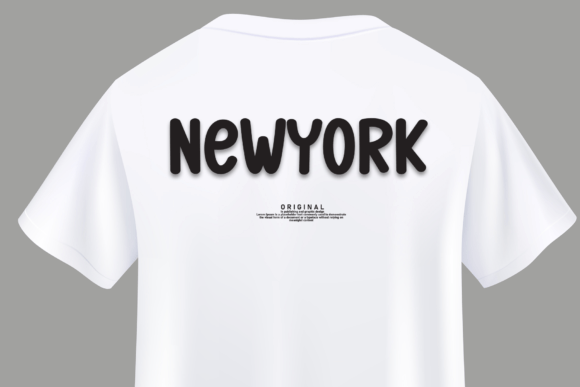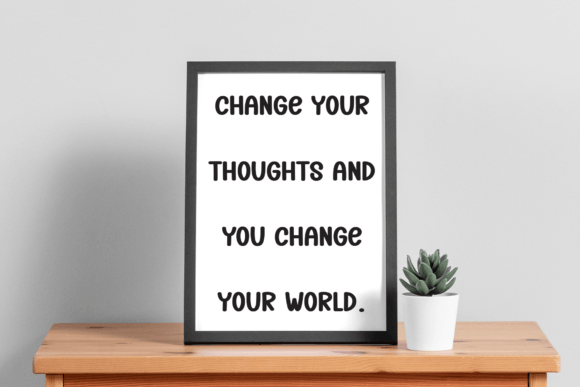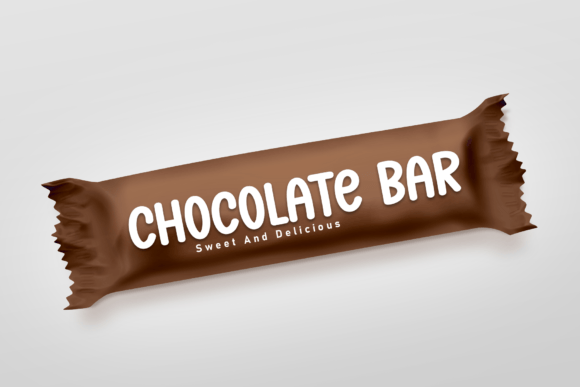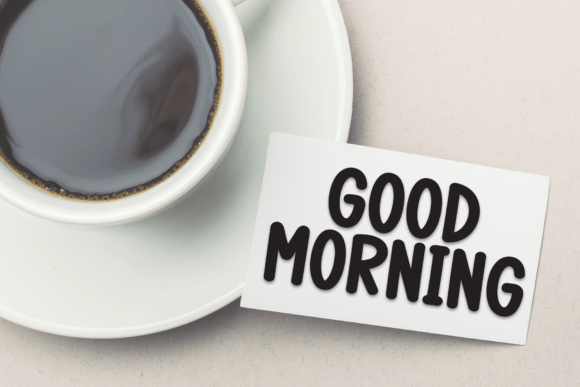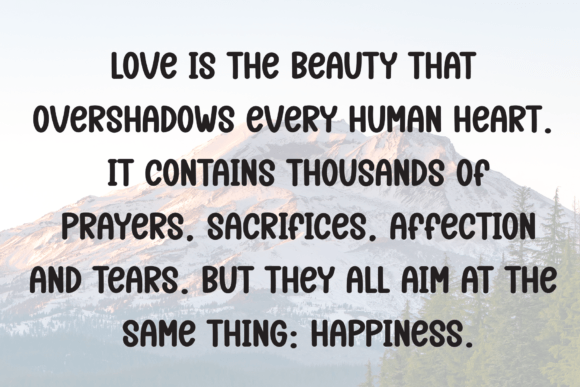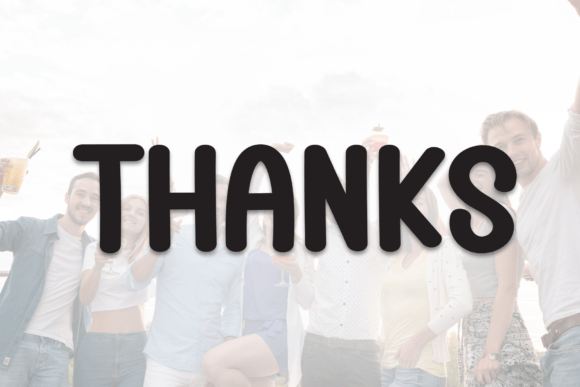
Introducing Happy Party Font: The Ultimate Addition to Your Design Toolkit
Are you tired of using the same old fonts for your designs? Do you want to add a touch of whimsy and joy to your creations? Look no further than Happy Party Font, a charming and endearing handwritten display font that exudes sweetness and friendliness. With its fun, playful characteristics, this font is perfect for wedding invitations, greeting cards, and any other designs that long for a dash of personality.
A Unique Handwriting Aesthetic
Happy Party Font boasts a unique handwriting aesthetic that brings a personal touch to your designs. Its handwritten style is reminiscent of a warm and cozy conversation with a friend, making it perfect for designs that require a friendly and approachable tone. The font’s playful characteristics add a touch of whimsy and fun, making it ideal for designers and crafters who want to create designs that stand out from the crowd.
Wedding invitations and greeting cards are special occasions that require a font that can convey warmth, love, and joy. Happy Party Font is the perfect choice for these types of designs, as it adds a touch of sweetness and friendliness that will make your creations truly special. Whether you’re designing a wedding invitation, a birthday card, or a holiday greeting, this font is sure to bring a smile to the recipient’s face.
Adds Vibrancy and Joy to Your Designs
Happy Party Font is not just a font, but a fun addition to your design toolkit that adds vibrancy and joy to your artistic expressions. Its unique handwriting aesthetic and playful characteristics make it the perfect choice for designers and crafters who want to add a touch of personality to their designs. With Happy Party Font, you can create designs that are truly engaging and delightful, making it perfect for a wide range of applications, from digital designs to print materials.
Key Features of Happy Party Font
- Handwritten display font: Happy Party Font is a handwritten display font that exudes sweetness and friendliness.
- Fun and playful characteristics: This font boasts fun and playful characteristics that add a touch of whimsy and joy to your designs.
- Unique handwriting aesthetic: Happy Party Font has a unique handwriting aesthetic that brings a personal touch to your designs.
- Perfect for wedding invitations and greeting cards: This font is perfect for wedding invitations, greeting cards, and any other designs that require a friendly and approachable tone.
- Adds vibrancy and joy to your designs: Happy Party Font adds vibrancy and joy to your artistic expressions, making it perfect for a wide range of applications.
Why Choose Happy Party Font?
There are many fonts to choose from, but Happy Party Font stands out from the rest due to its unique handwriting aesthetic and playful characteristics. Here are just a few reasons why you should choose Happy Party Font for your next design project:
- Personal touch: Happy Party Font brings a personal touch to your designs, making them truly special and engaging.
- Easy to read: This font is easy to read, making it perfect for designs that require a clear and concise message.
- Versatile: Happy Party Font is versatile and can be used for a wide range of applications, from digital designs to print materials.
- Fun and playful: This font is fun and playful, making it perfect for designers and crafters who want to add a touch of whimsy and joy to their designs.
In conclusion, Happy Party Font is a charming and endearing handwritten display font that exudes sweetness and friendliness. With its fun, playful characteristics and unique handwriting aesthetic, this font is perfect for wedding invitations, greeting cards, and any other designs that long for a dash of whimsy and joy. Whether you’re a designer or crafter, Happy Party Font is a fun addition to your design toolkit that adds vibrancy and joy to your artistic expressions. So why wait? Try Happy Party Font today and bring a touch of happiness and joy to your designs!